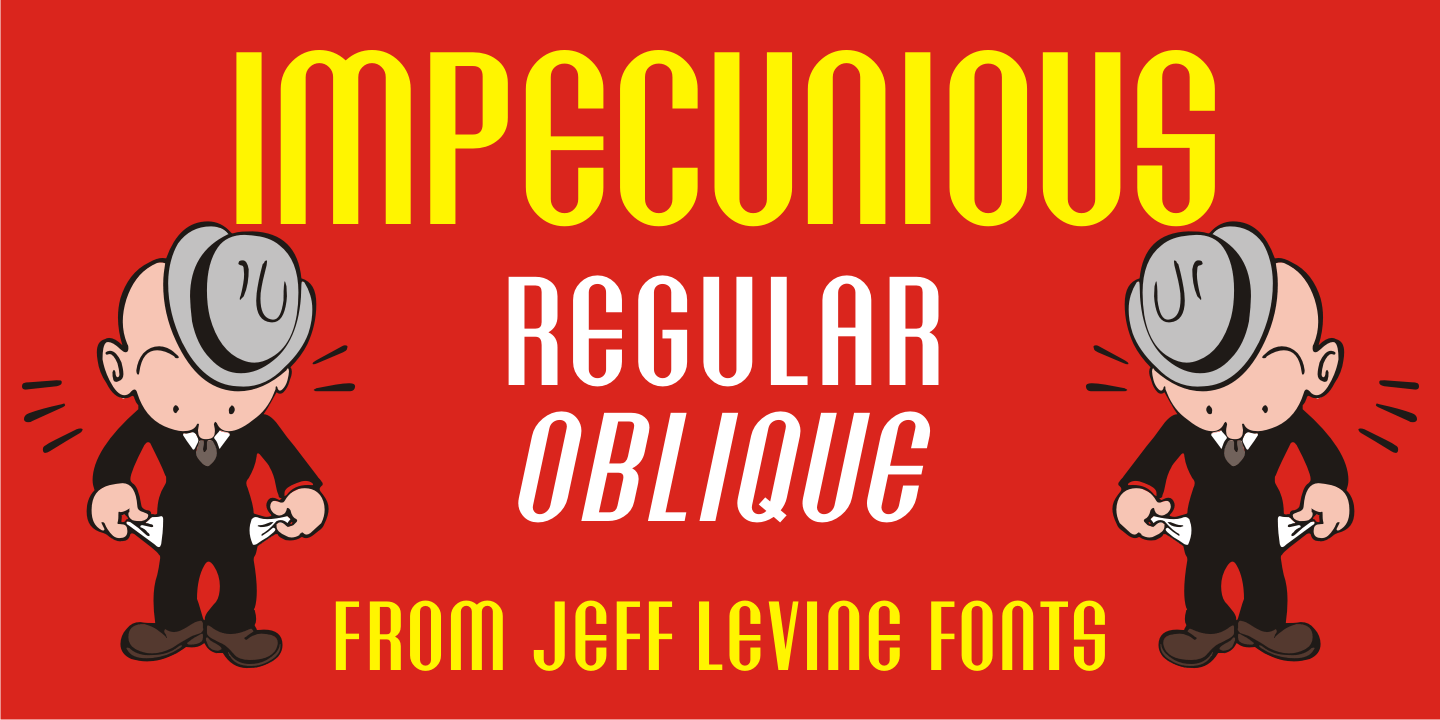
Impecunious
The type design for Impecunious JNL comes from the 1939 sheet music for 'You Don't Know How Much You Can Suffer (Until You Fall in Love)”.
The name comes from another piece of sheet music, 1899's 'Impecunious Davis” [a piece of late 19th century tripe demeaning Black Americans]. However, the word 'impecunious' was intriguing.
According to the website Merriam-Webster.com, the simple definition of impecunious means 'having little or no money'. Since we've all been in that spot at one time or another, it became a perfect font name.
Impecunious JNL is available in both regular and oblique versions.